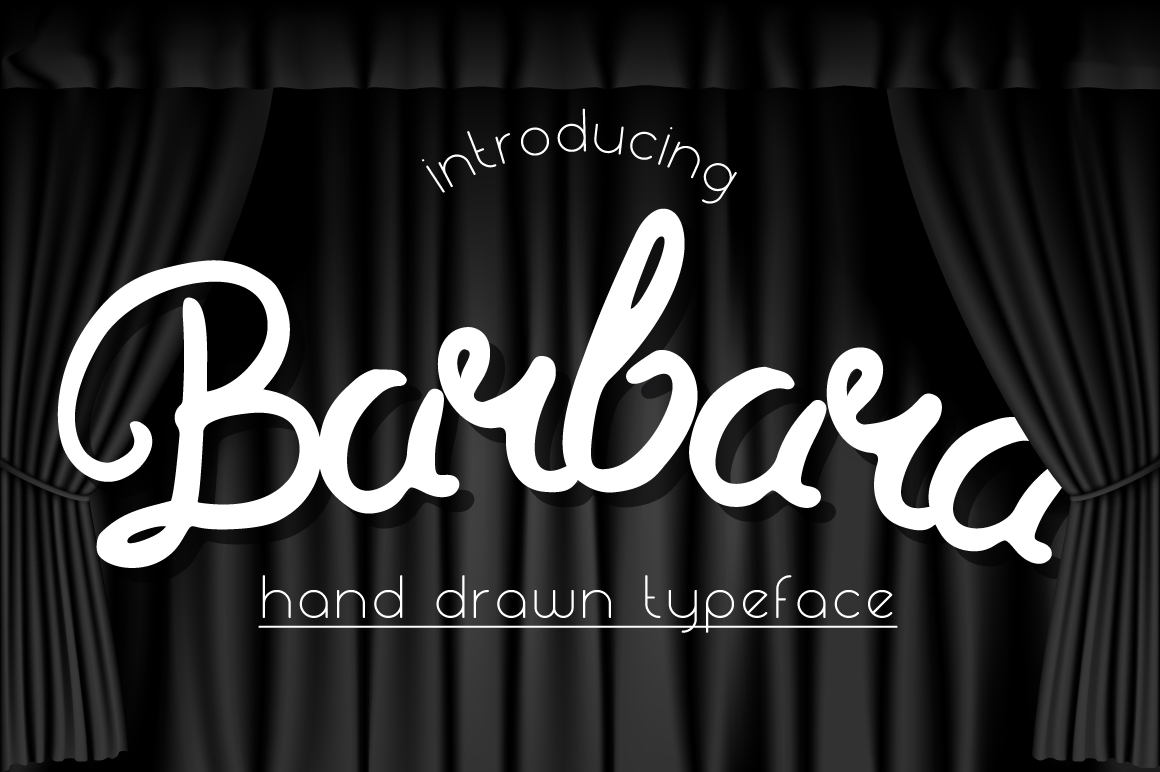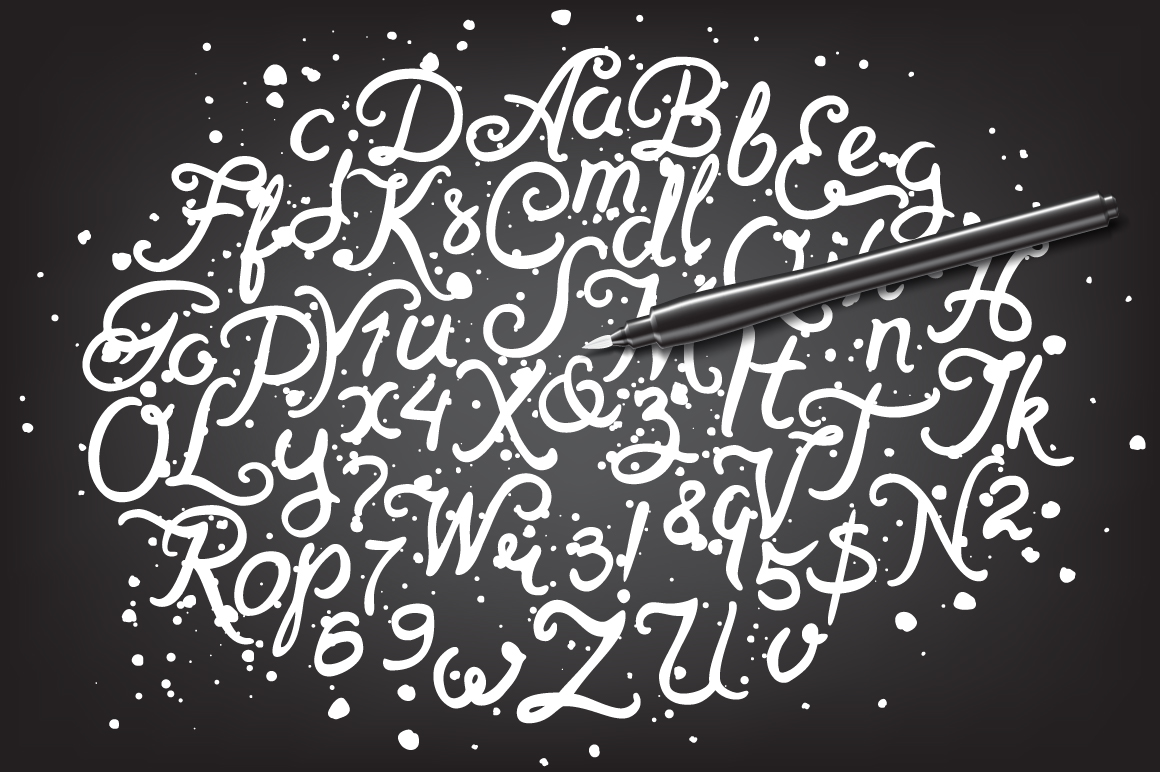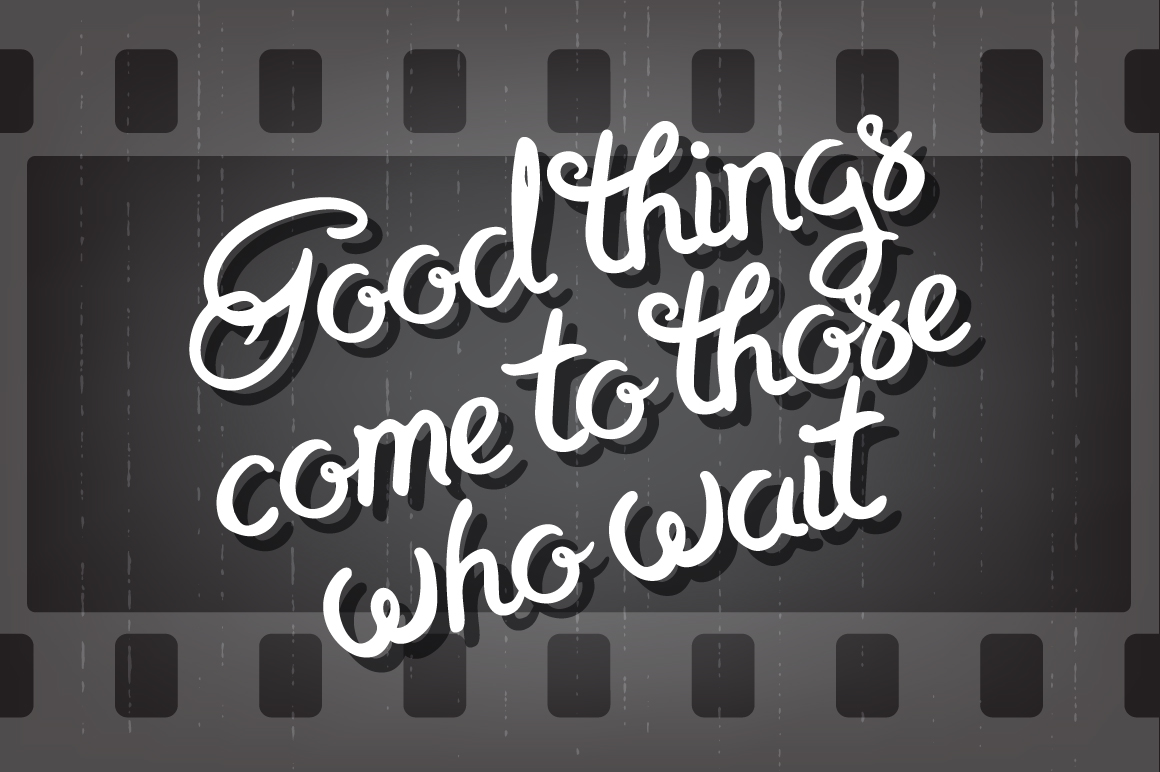
HomeScript FontsBarbara Font Script Fonts Barbara Font FacebookXPinterestWhatsApp Barbara Font Poster 2 Barbara Font Poster 3 About Barbara Font Barbara is a stunning handmade brushpen font. DOWNLOAD NOW People also explored Snow Font Balloon Heart Font Loredany Font Flower Blooming Font Brer Rabbit Benjamin Font Snow Fresh Font Singtton Vintage Font Rosemellind Signature Font 284 0 TagsBarbara Font Previous articleCaroline FontNext articleCharlion Script Font LEAVE A REPLY Cancel reply Comment: Please enter your comment! Name:* Please enter your name here Email:* You have entered an incorrect email address! Please enter your email address here Website: Save my name, email, and website in this browser for the next time I comment. Personal Use Free Screengem Personal Use Free Read more about this font Good Mood Personal Use Free Read more about this font Austins Personal Use Free Read more about this font Spectrashell Personal Use Free Read more about this font BLOG Best Fonts for T-Shirt Design – Top 2025 Picks In 2025, t-shirt design has become more than just fashion—it's a form of self-expression. Whether you're... Free Fonts Risk: Why Free Fonts Can Be Dangerous for Designers 5 Fonts That Will Dominate Design Trends in 2026 Fonts That Capture the Spirit of New York City